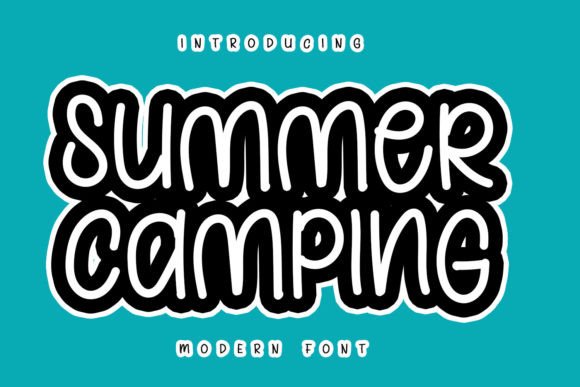
Unleash your creativity with Summer Camping Font, a beautiful script font family designed to transform your designs into captivating masterpieces. Its meticulously crafted characters, flowing curves, and elegant style make it perfect for a wide range of projects, from YouTube banners and cover logo mockups to wedding invitations, ID cards, flyers, and much more.
With Summer Camping Font, let your imagination run wild as you create unique and eye-catching designs that leave a lasting impression on your audience. It's more than just a font; it's an artistic tool that opens up a world of possibilities, allowing you to express your ideas with flair and originality.
This versatile font family is not just limited to personal projects; it's also an ideal choice for businesses looking to make a statement. Its distinctive style and legibility make it perfect for logos, branding, marketing materials, social media posts, product packaging, and more. Stand out from the crowd and leave a lasting impression on your customers with Summer Camping Font.
With Summer Camping Font, you'll have the best font to use for business, one that exudes professionalism, creativity, and sophistication. It's a font that speaks volumes about your brand, conveying a sense of trust, reliability, and quality. Your designs will instantly elevate with the charm and elegance of Summer Camping Font, capturing the attention of your audience and driving them to take action.